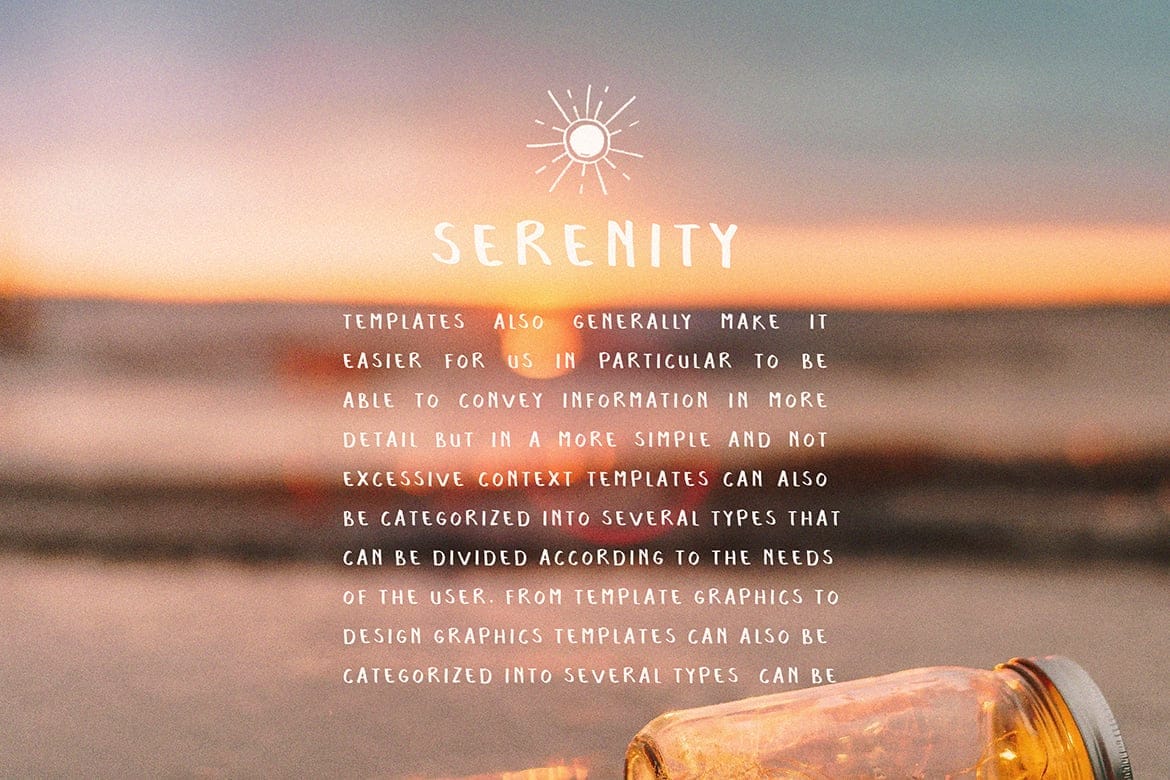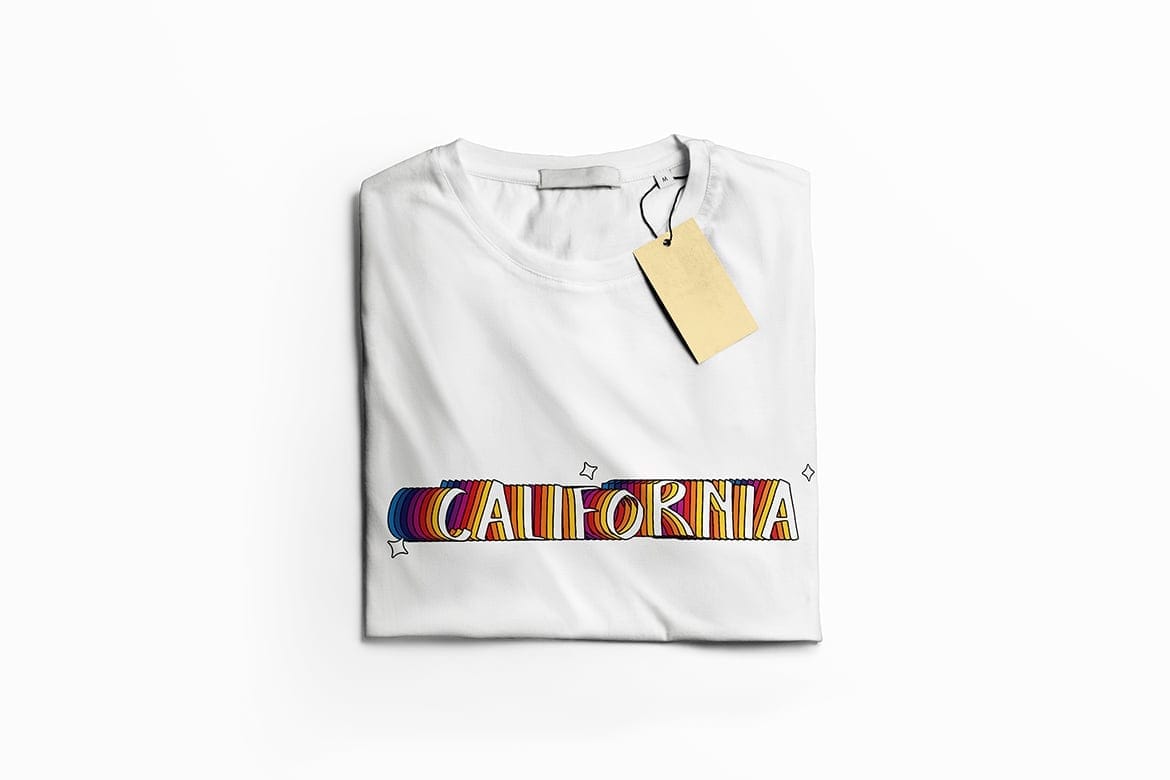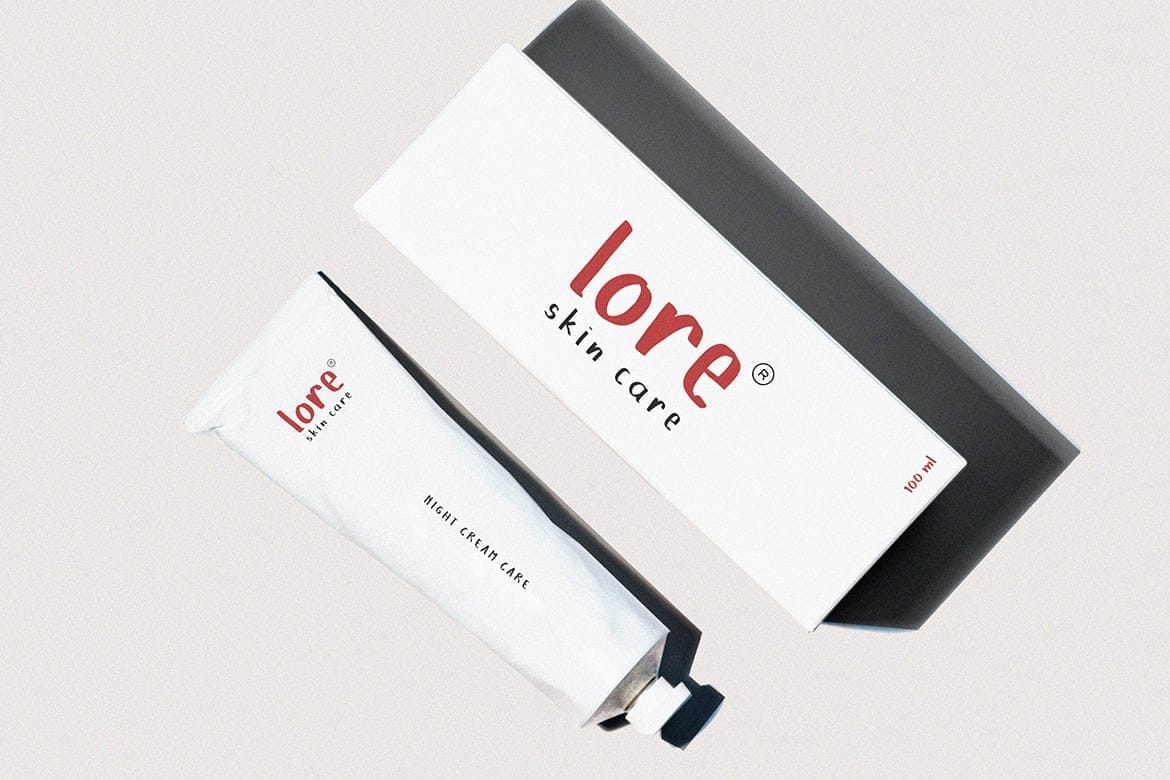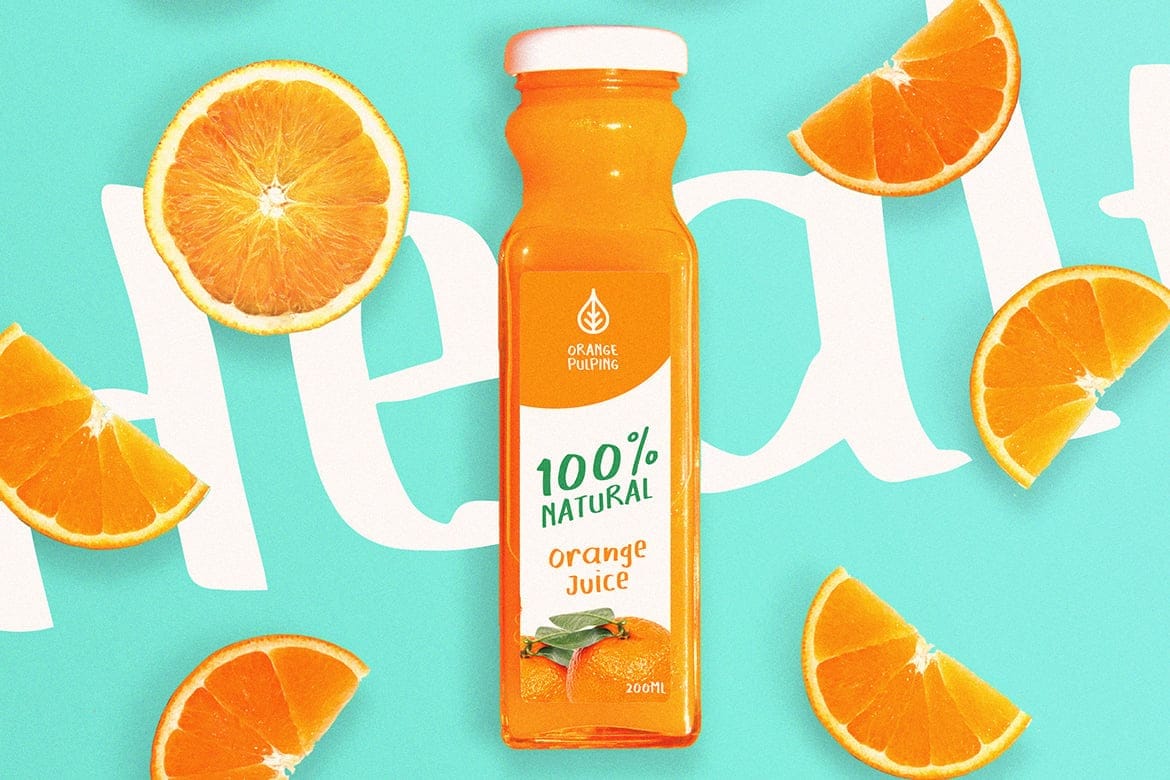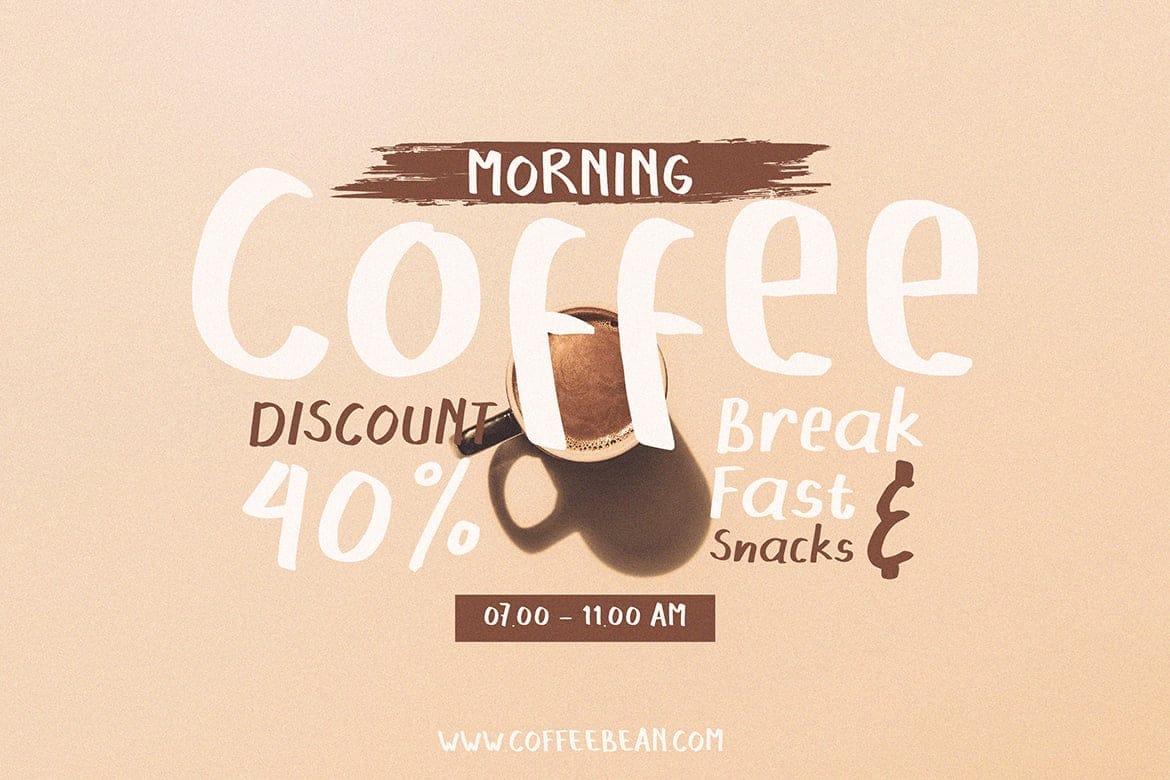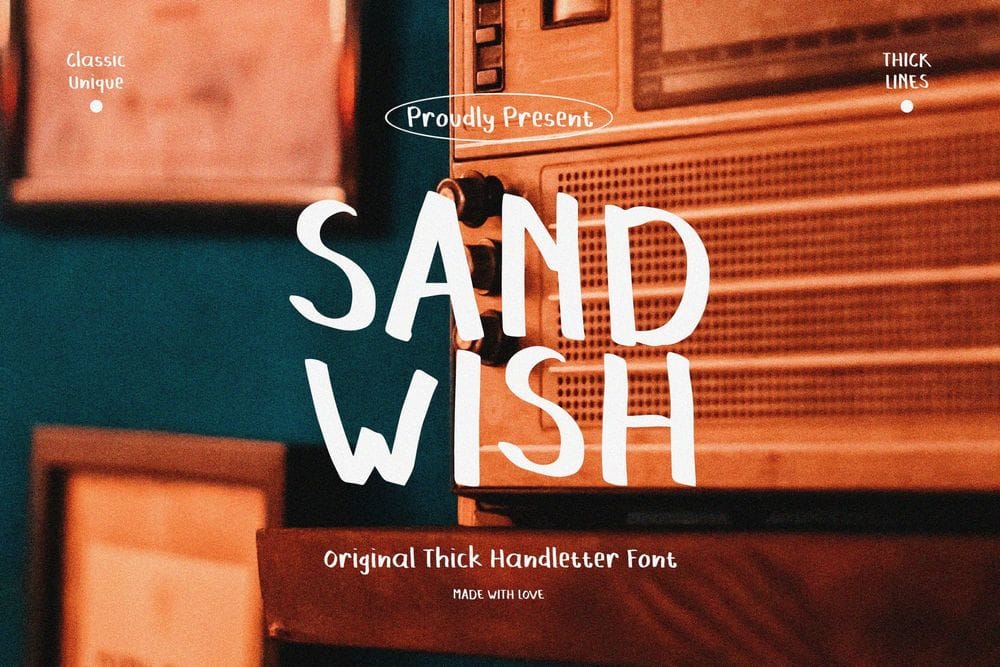
Sand Wish Font
Sand Wish Font This font is clean, professional and bold. Each letter has its own personality, which is what makes it so much fun to use in your branding.
Sand Wish Font is unique handwriting font. Created with original handmade sketch. This font suit for personal & commercial project such a poster, letter, headline, web blog, social media post, stories, banner, Packaging, T-shirt design, pillow, wedding invitation, or even for logo design. Use them in your designs to create a unique identity.